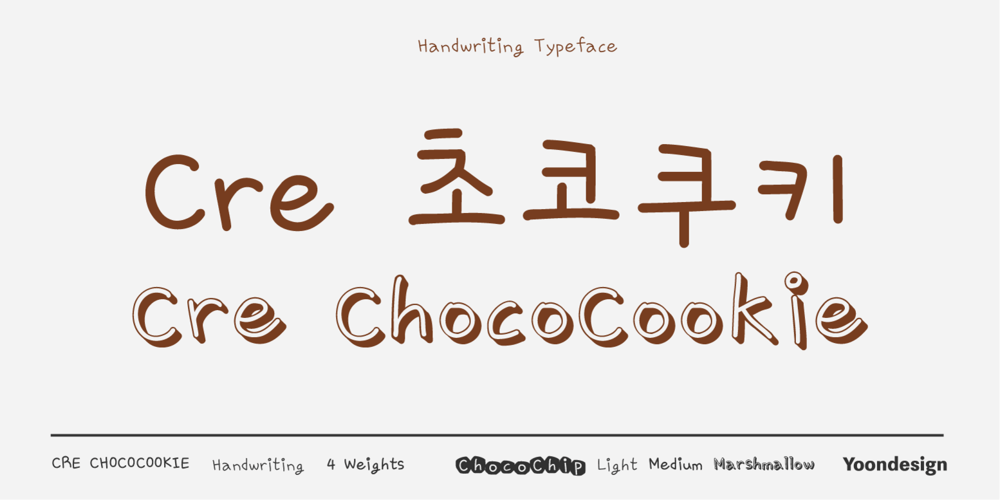
Cre ChocoCookie
Cre ChocoCookie font
Cre ChocoCookie Font Family was designed by Yoon Design Team and published by Yoon Design. Cre ChocoCookie contains 4 styles and family package options. Cre ChocoCookie Family is curly, cute teenage girl’s handwriting. Especially Cre ChocoCookie MM is Font that renders different shapes on a letter in the middle. It looks like a choco cookies. This font family has 4 styles and is ideal for cartoons, greeting cards and children’s books, as it has a happy feeling to it.